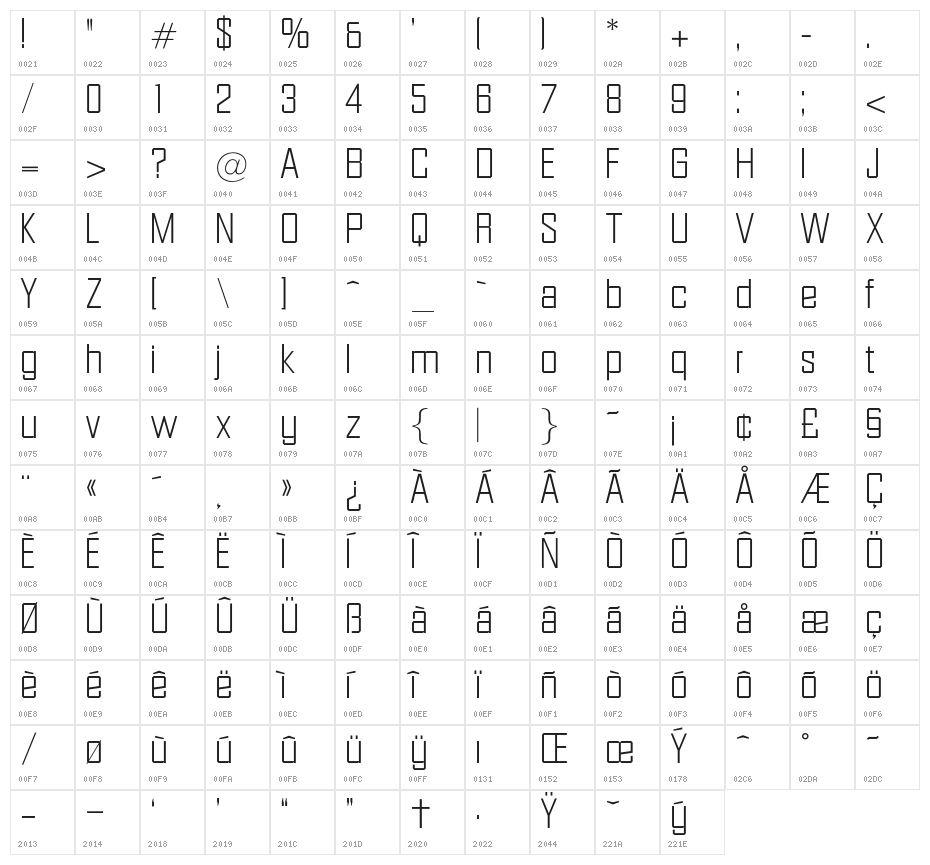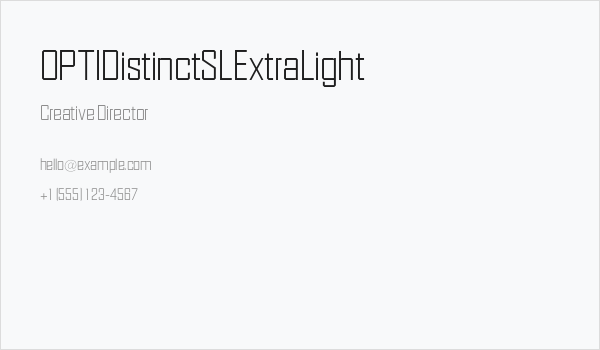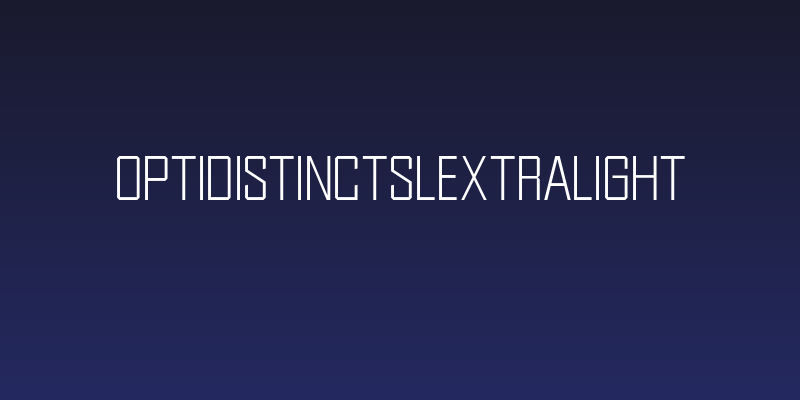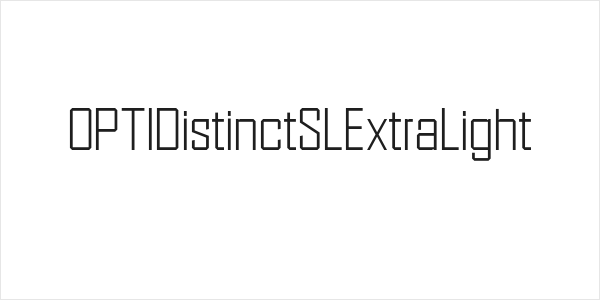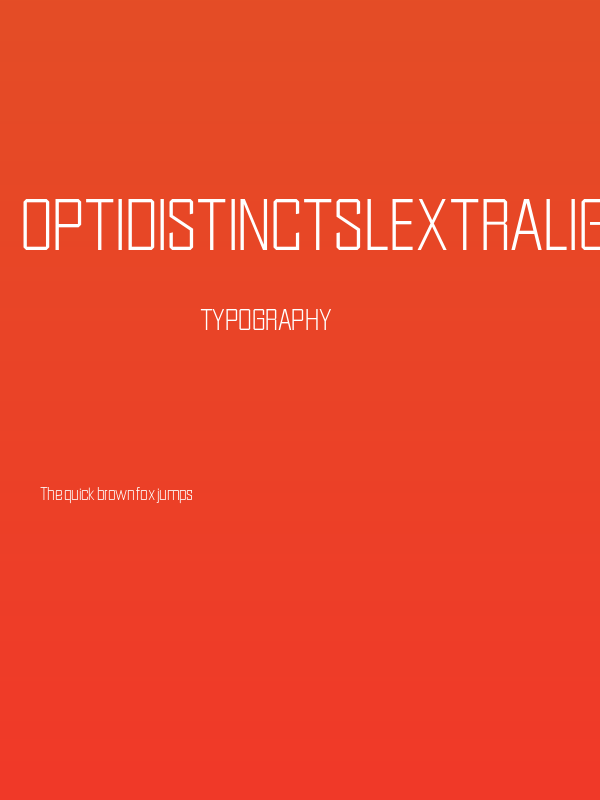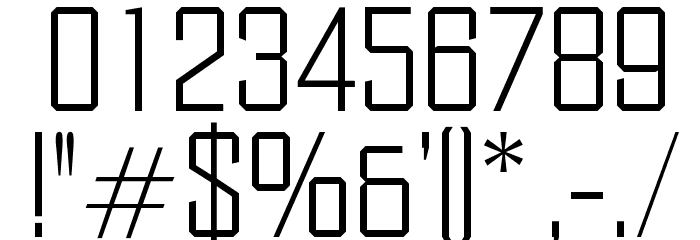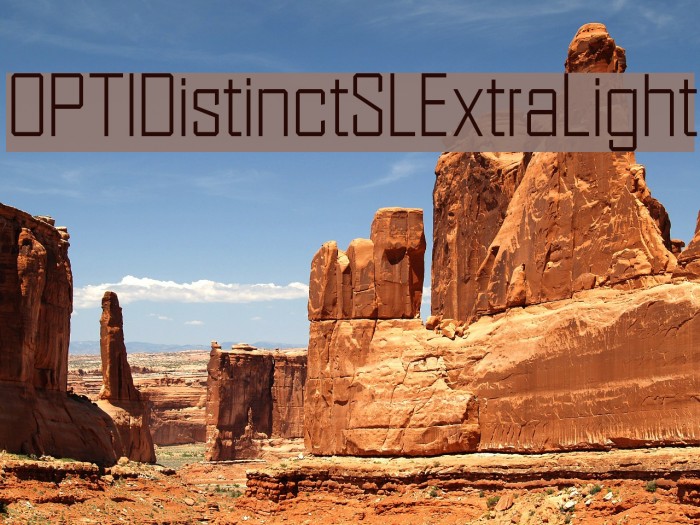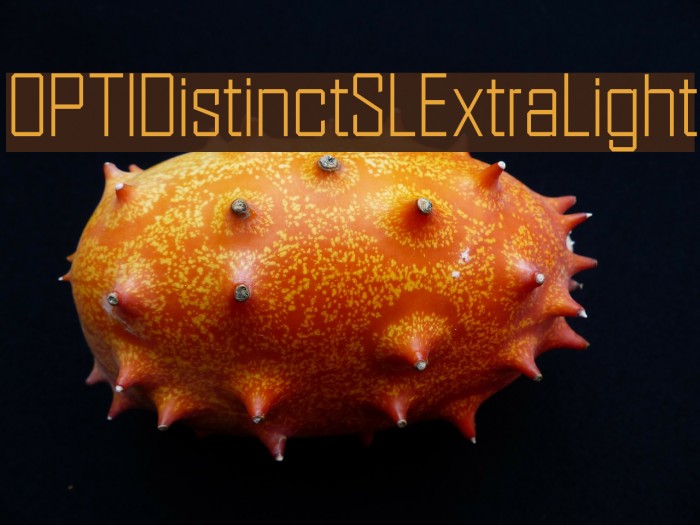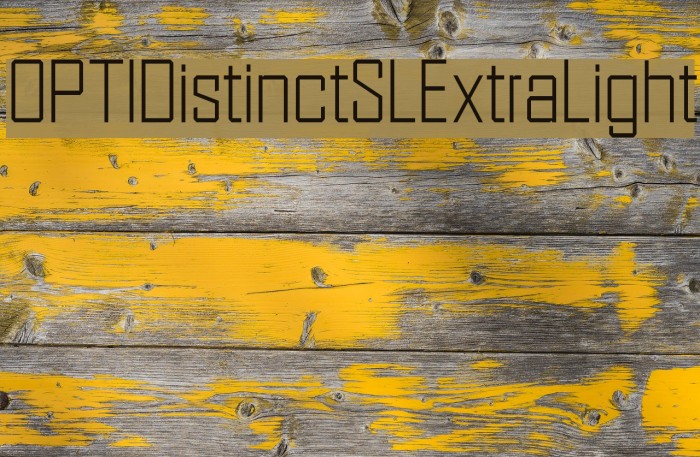
OPTIDistinctSLExtraLight Font
This font features a geometric and modern design with a distinct, clean appearance. The characters are constructed with straight lines and sharp angles, giving it a futuristic and technical feel. The uppercase and lowercase letters maintain a consistent height, while the numerals and special characters complement the overall style with their uniform structure. The font's thin strokes and minimalistic design make it suitable for a variety of applications where clarity and precision are essential.
| Use Case | Headlines, Logos, Digital interfaces |
| Proposed Projects | Ideal for technology branding, digital interfaces, architectural designs, and modern advertising campaigns. |